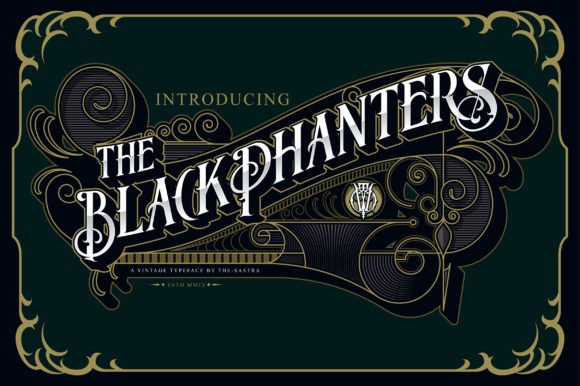
Introduction to Blackphanters Font
The Blackphanters is an unique display font.
It has a striking look and is perfect for badges, branding, labels, apparel, headlines, signage, logos, quotes apparel and other creative applications .
Why Choose Blackphanters Font?